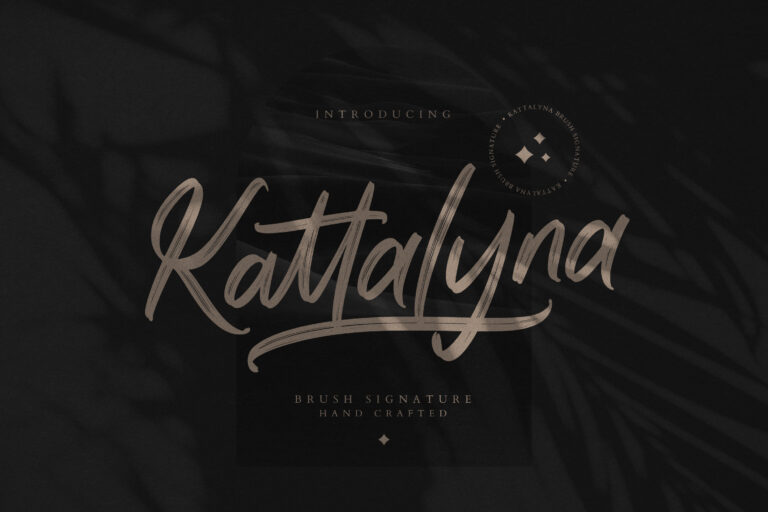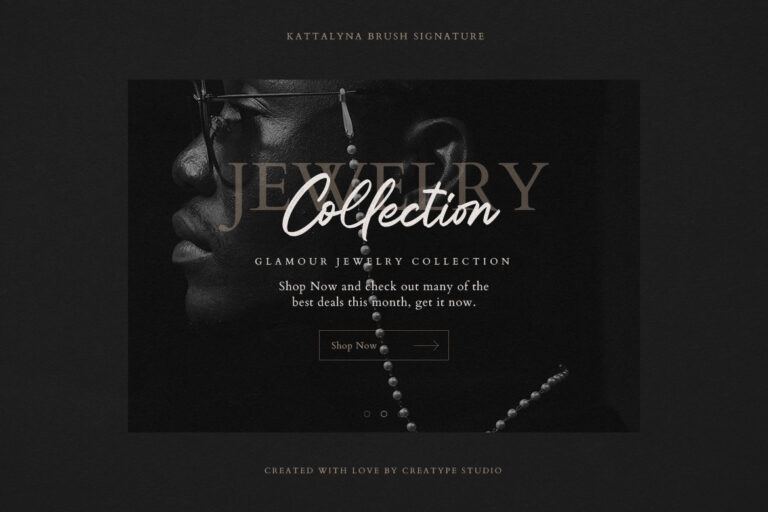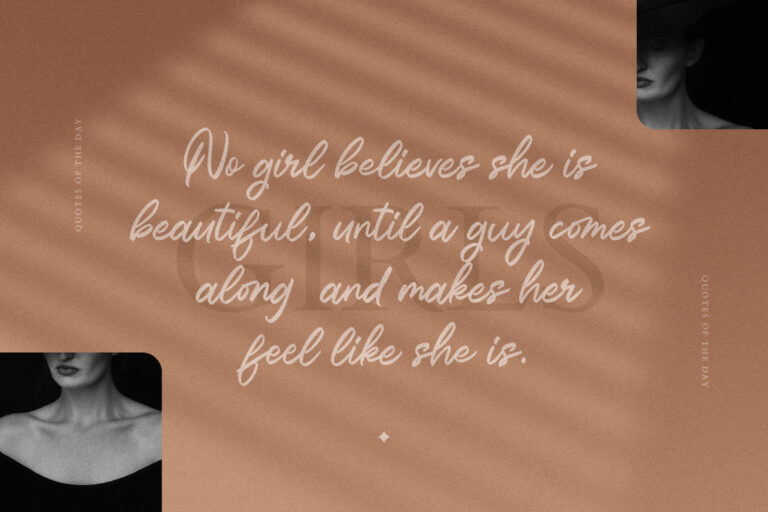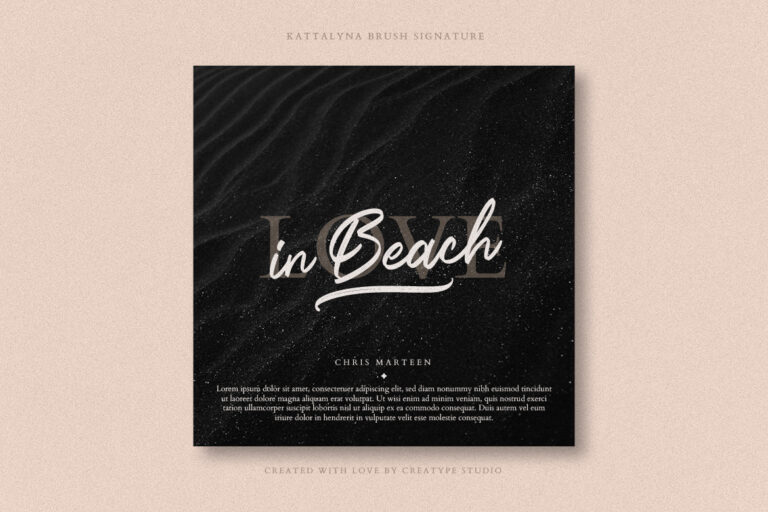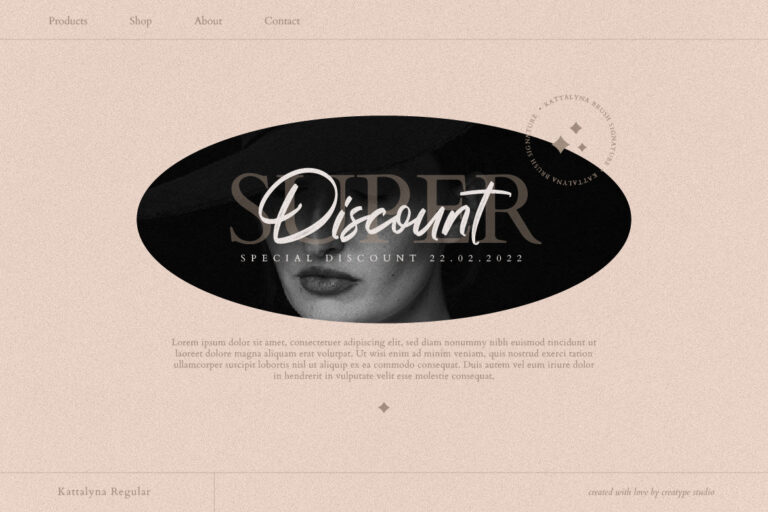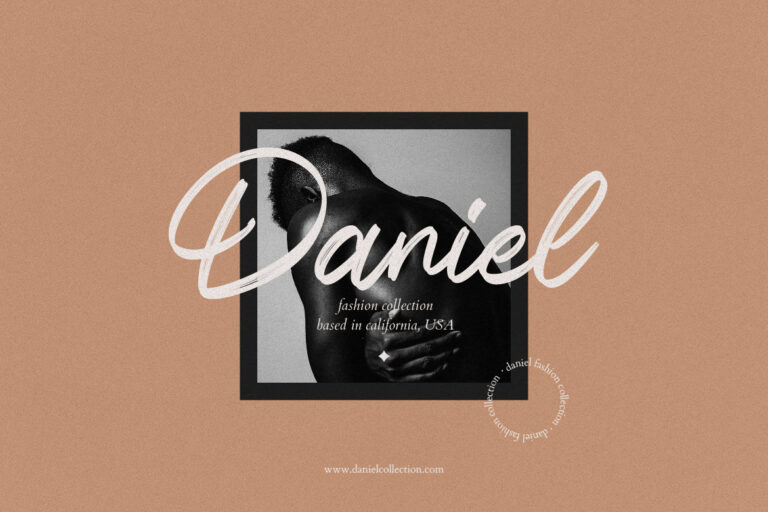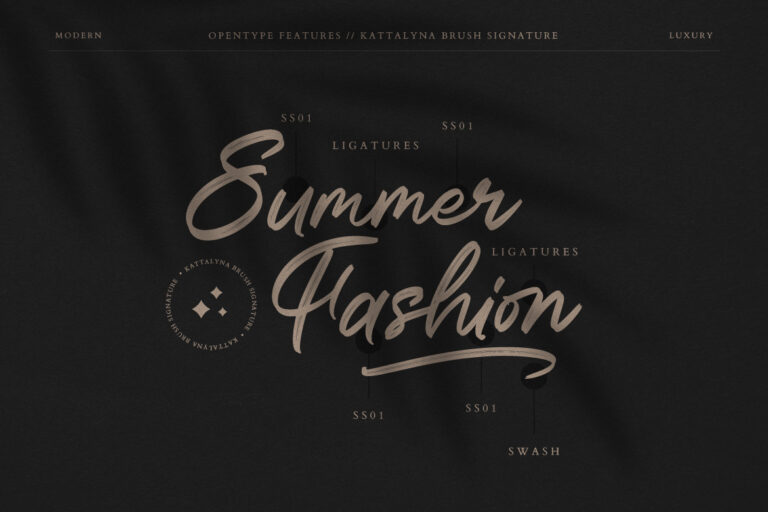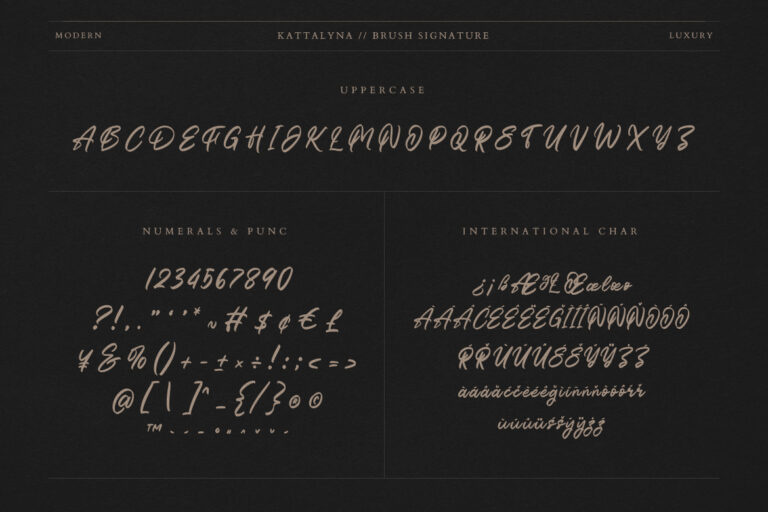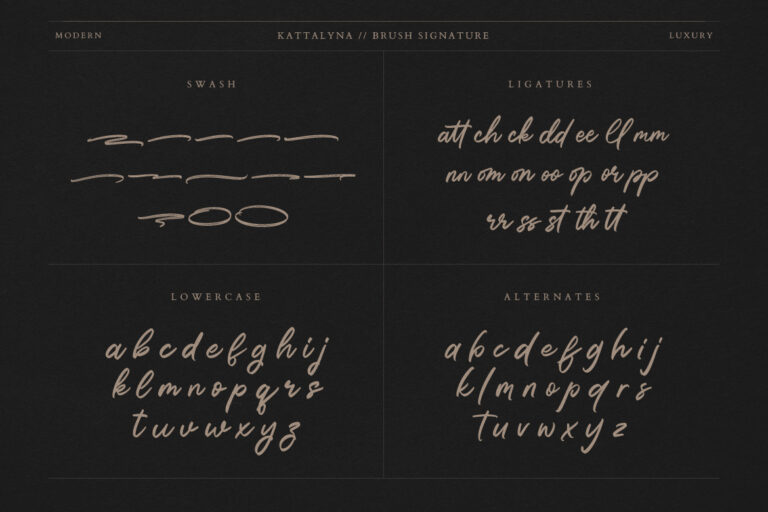
Kattalyna Brush Signature is a bold handwritten font with a very detailed brush texture. The detailed brush texture of the font makes Kattalyna appearance look so natural, elegant, and modern.
Kattalyna Brush Signature is perfect for branding projects, logo, wedding designs, social media posts, advertisements, product packaging, product designs, label, photography, watermark, invitation, stationery and any projects that need handwriting taste
Kattalyna Brush Signature